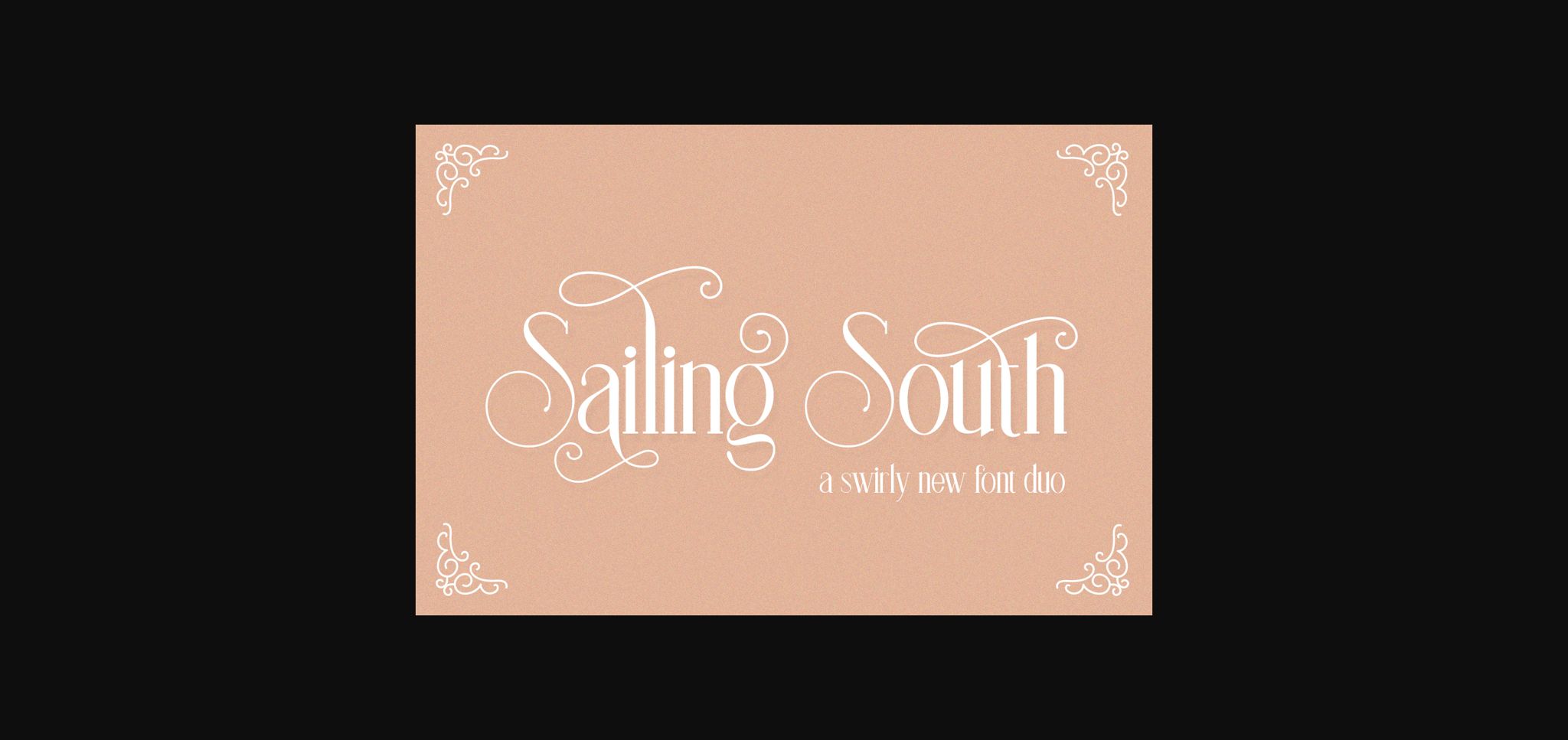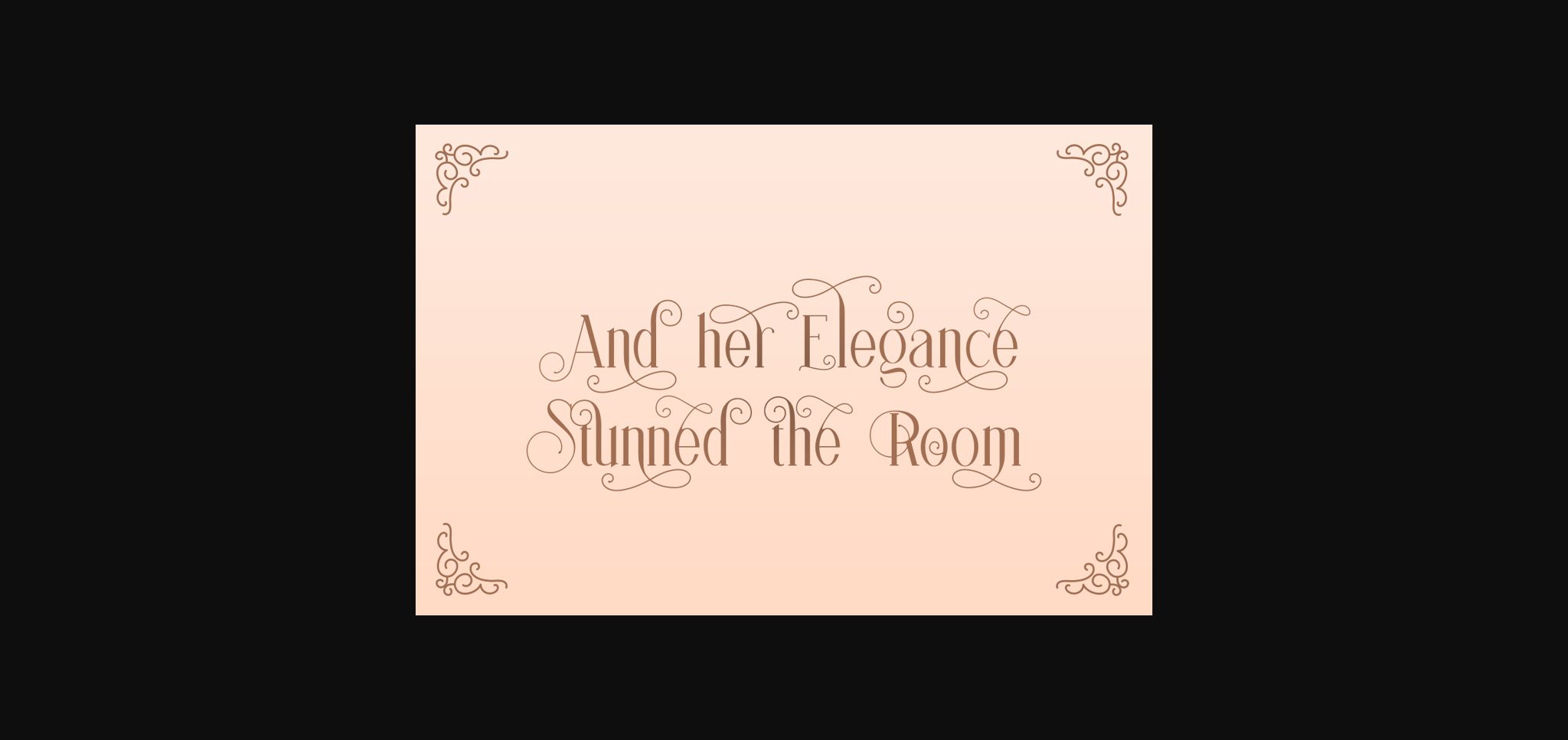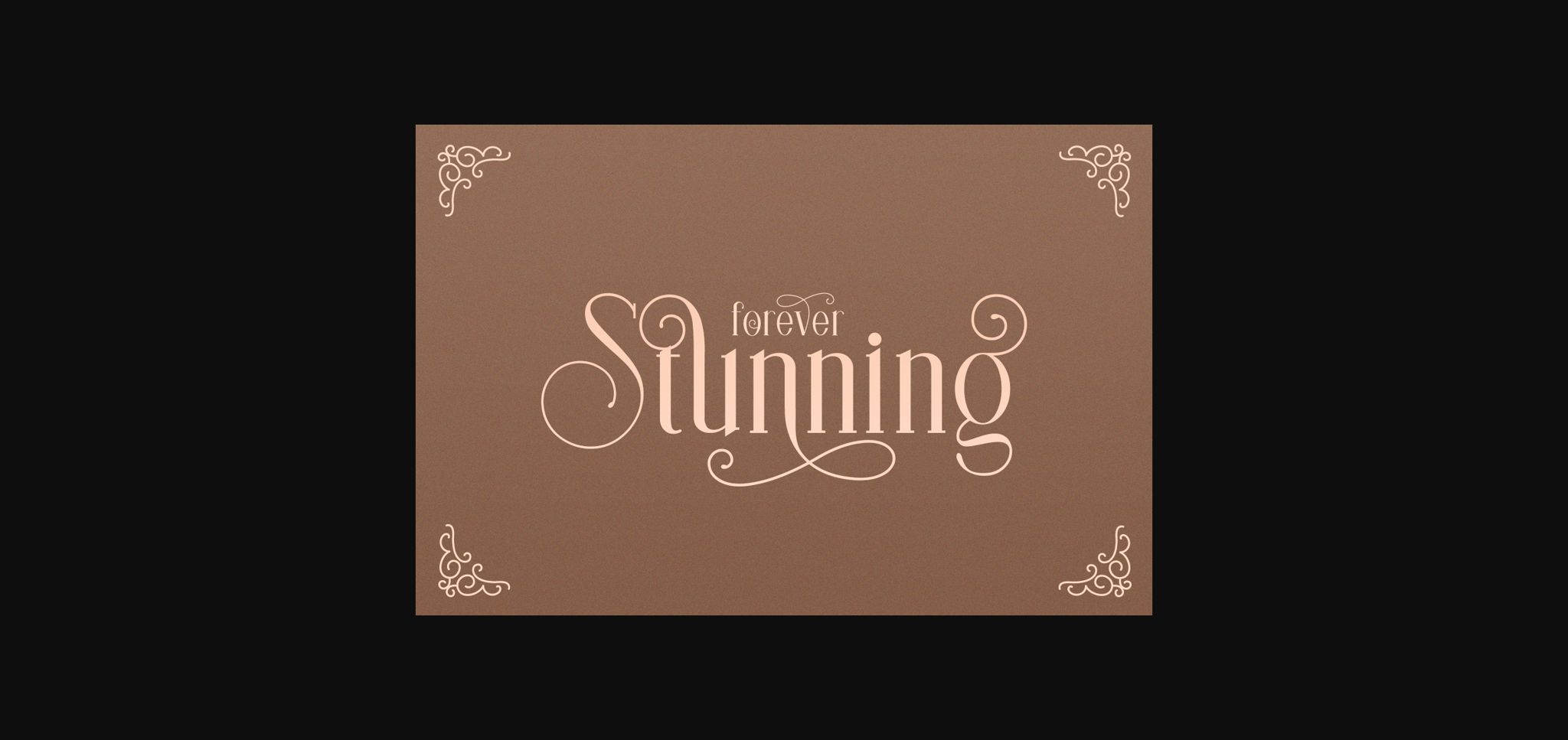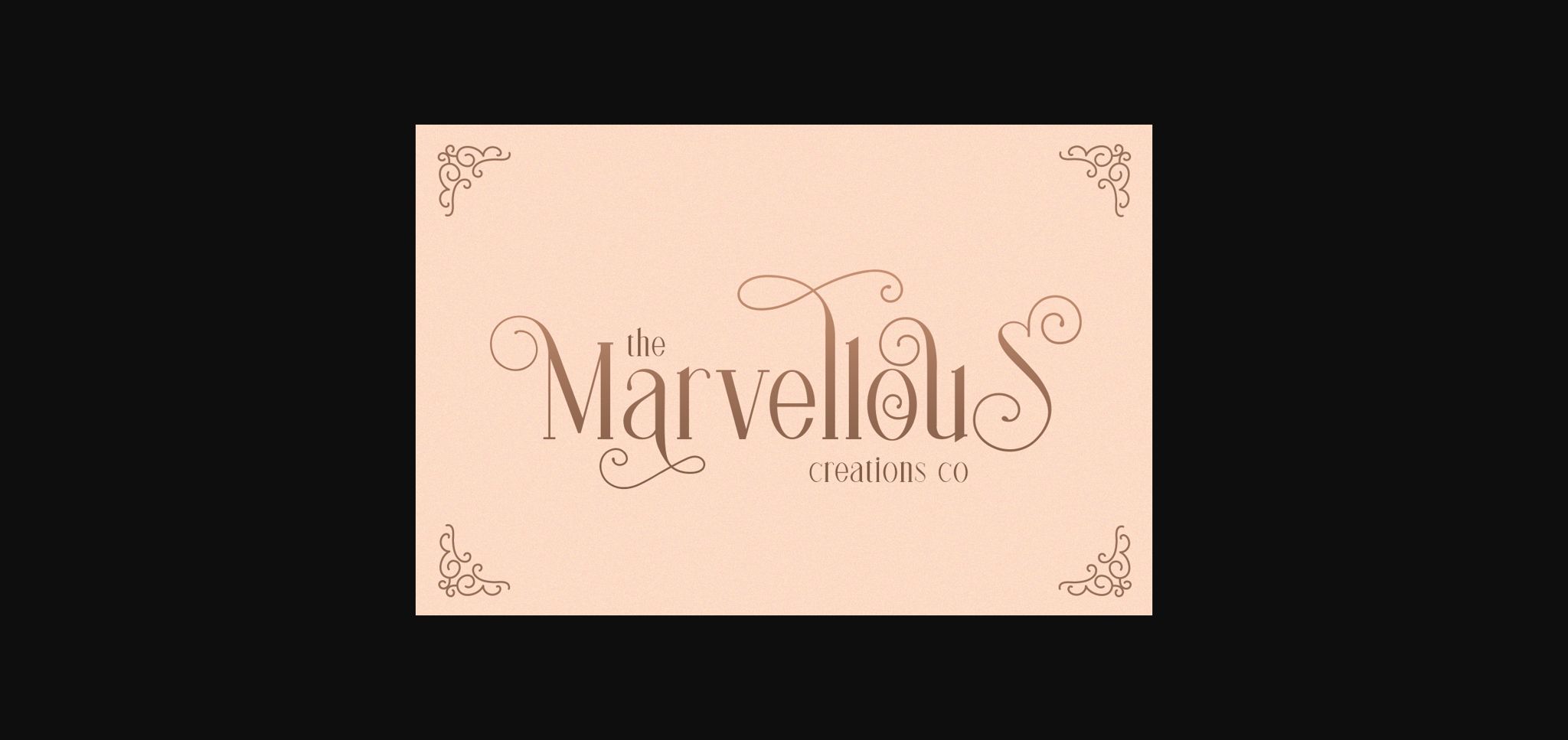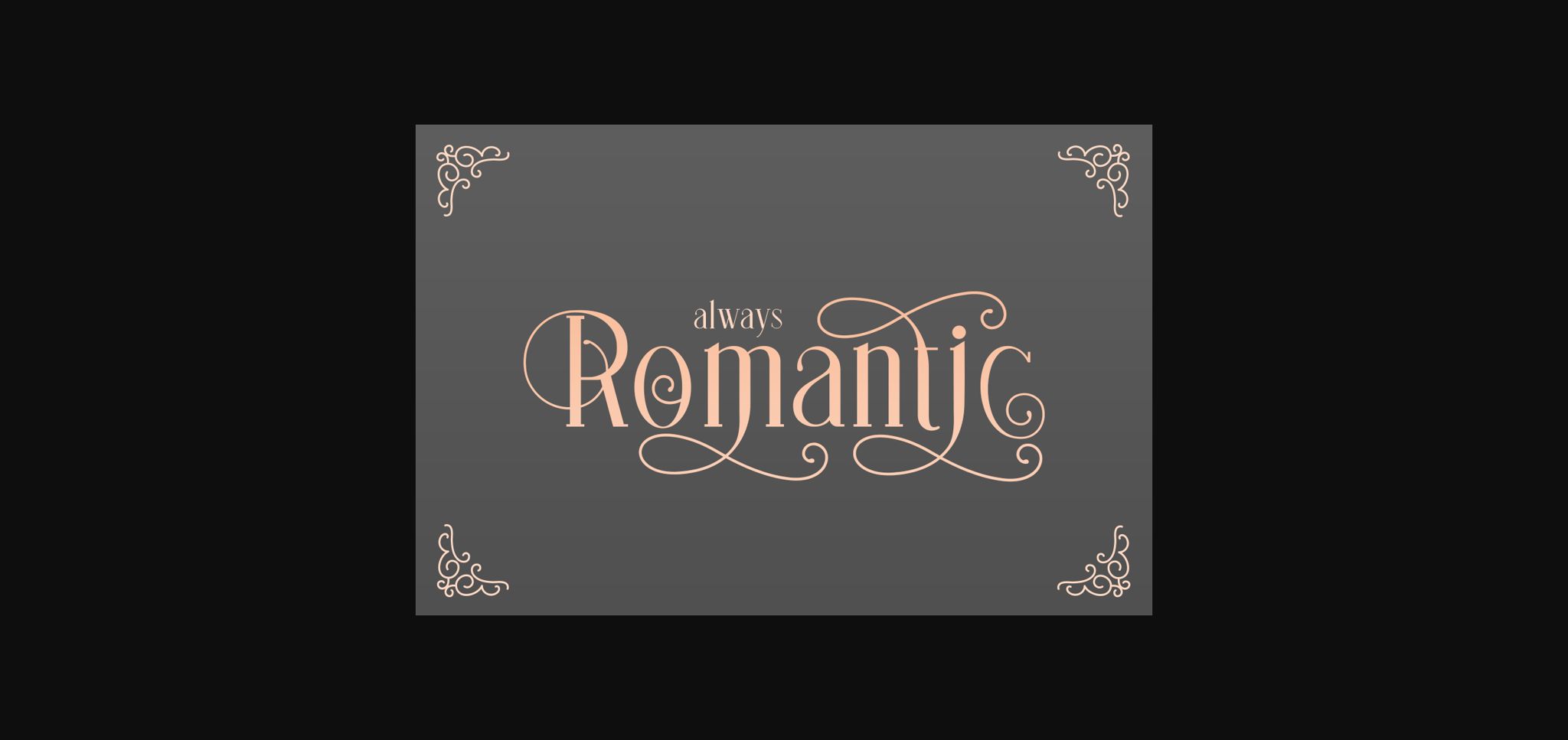
About Sailing South Font
Sailing South duo is a match made in heaven. This fantastic sans serif font is best suited for headlines of all sizes, as well as for blocks of text that have both maximum and minimum variations. Whether it’s for web, print, moving images or anything else – Sailing South will look spectacular.